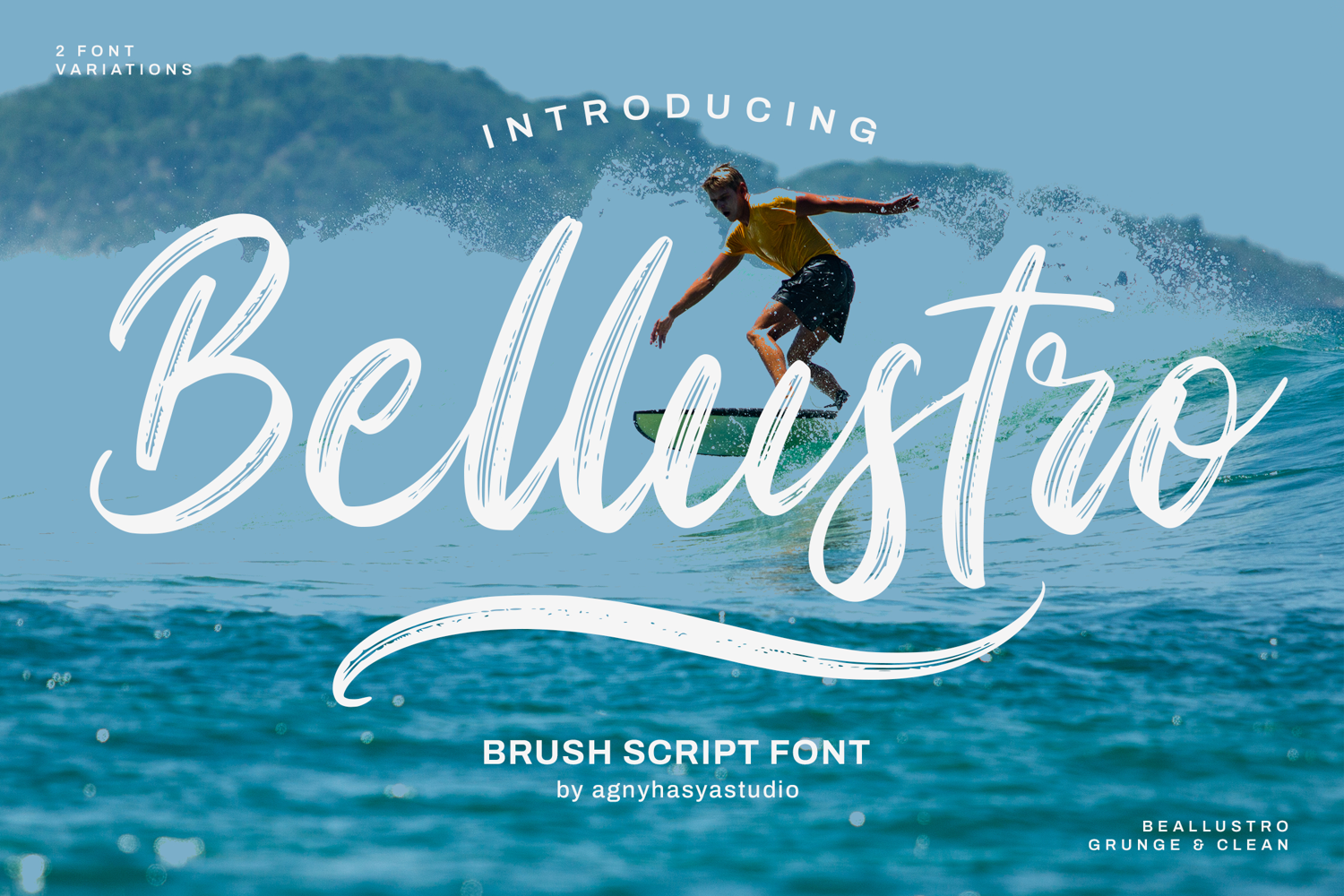
Bellustro - Brush Script Font
Bellustro is a fresh and expressive handwritten brush font, designed for consistency and artistic authenticity.
Its natural, hand-drawn strokes make it perfect for branding, social media, invitations, and creative projects that need a casual or business touch.
Featuring two versatile styles, Bellustro Regular and Bellustro Clean, including an Italic version, Swashes, and alternates,
This typeface adapts effortlessly and is suitable for digital and print applications.
Whether making a statement or adding subtle elegance, Bellustro delivers a captivating typographic experience.